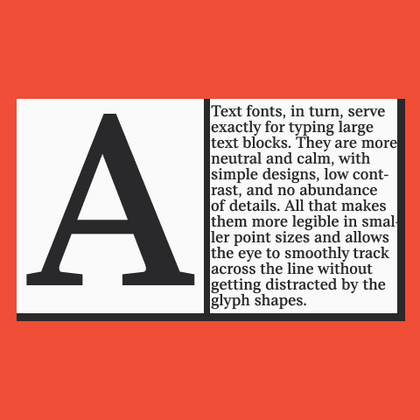
Text Fonts
Also known as reading fonts, these typefaces feature a calm, neutral design. Their main strength lies in clarity and high readability, even at small sizes or in extensive text. Versatile and reliable, they provide a solid foundation for any project. Explore the best text fonts from the TypeType library.
TT Odellia is an old-style serif with a modern design, inspired by Venetian typefaces and classical music.
TT Nooks Serif is a display modern serif with a slight touch of egocentricity. It has a sharp and firm, yet elegant and stately character.
TT Norms® Pro is a typographic legend embraced by world-renowned brands. Evolved through multiple iterations, it has conquered MyFonts and redefined typographic versatility. A design workhorse that transforms from a humble tool to an essential creative companion.
TT Commons™ Pro is the studio’s typographic powerhouse. A font so versatile it defies categorization, seamlessly bridging style and function. For designers seeking a universal foundation that elevates every project, this is the definitive choice.
TT Hoves Pro is a Scandinavian sans serif that whispers minimalist elegance. Simultaneously understated and distinctive, it’s a designer’s secret weapon that transforms complex challenges into visual poetry with effortless precision.
TT Supermolot Neue is a game-changer in visual communication! An advanced, modular sans serif that captures the pulse of technological innovation, bringing electrifying vision to everything from immersive game interfaces to bold visual narratives.
TT Firs Neue is a balanced sans serif infused with Scandinavian design philosophy. Elegant and versatile, polished through two deliberate revisions to achieve typographic perfection.
TT Rounds Neue is a soft and friendly font that knows how to be different. In lighter font styles it looks minimalist and neutral. The bold font styles make it puff up and achieve maximum roundness, exuding childlike charm.
TT Fors is a design Swiss Army knife of typography. This geometric sans serif delivers pure versatility through clean, refined proportions. It can be used for defining interfaces or crafting visual accents.
TT Ramillas is a stylish and contemporary serif that elevates design to an art form. Characterized by its unique decorative styles and initials with a floral ornament, it crafts visual experiences that are truly one-of-a-kind. Already adorning over 3000 websites globally, it’s a Modern Cyrillic award-winner that redefines typographic sophistication.
TT Bells combines the elegant softness of Antiqua with a complex and daring temper reflected in straight stroke terminals and arrowheaded serifs. The typeface is based on the broad nib, which creates these hallmark terminals and serifs.
TT Jenevers is a modern serif with a Dutch flavor. The font family features the characteristic details peculiar to Dutch serifs—these are the asymmetrical shape of serifs and an irregular slant of ovals.
TT Regins is a Scottish modern serif. Striking contrast and sharp triangular serifs give this font a stern and commanding character, while refined forms, enlarged lowercase letters, and slightly condensed, static proportions add grace to its design.
TT Quaris is an exquisite, modern high-contrast sans whose design balances between soft and sharp. The glyph shapes in the font are fluid and tend towards roundness, yet there are also sharp elements.
TT Moons is a slim and contrast serif. This font family works especially smart in classic design themes. TT Moons is a typeface of the glyptal modern typeface.
TT Firs Neue is a contemporary reincarnation of the good old TT Firs sans serif.
TT Fellows is a humanist sans serif with a mechanical touch.